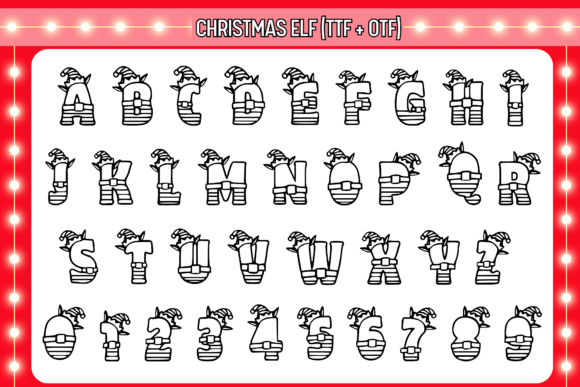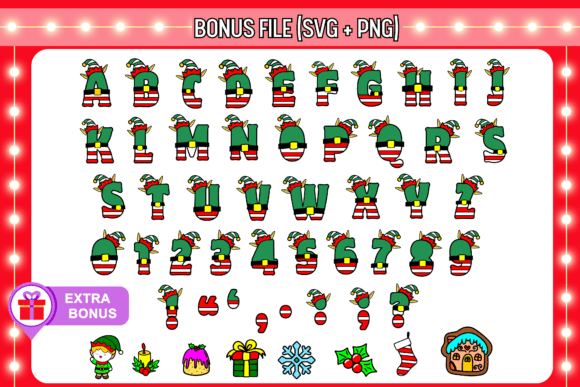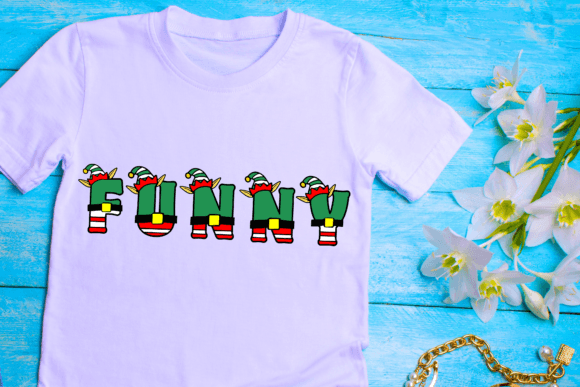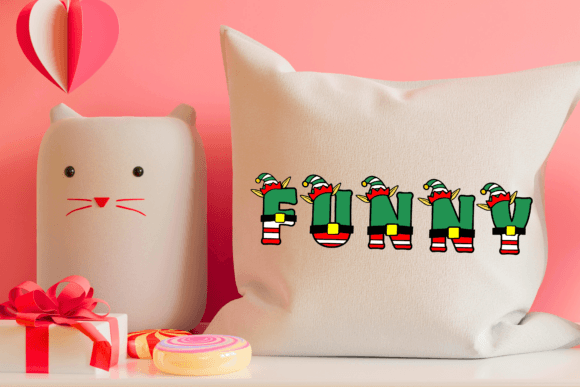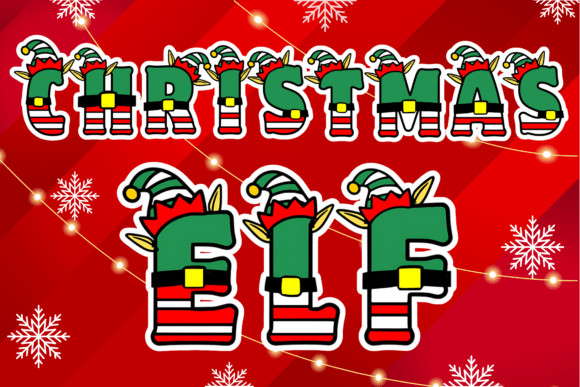
Introducing Christmas Elf Font: Add a Playful Touch to Your Holiday Projects
Are you looking for a unique and festive font to add a touch of magic to your holiday projects? Look no further than the Christmas Elf Font! This playful decorative font is designed to bring cheer and joy to your Christmas cards, banners, and holiday crafts. Each letter is carefully styled to resemble a cheerful elf, complete with festive hats, shoes, and holiday decorations.
What Makes Christmas Elf Font So Special?
The Christmas Elf Font is a one-of-a-kind typeface that combines whimsy and festivity, making it perfect for designers and crafters who want to add a personal touch to their holiday projects. Here are just a few reasons why this font stands out:
- Unique Lettering Style: Each letter is designed to look like a cheerful elf, complete with intricate details like hats, shoes, and holiday decorations.
- Playful and Festive: The Christmas Elf Font is designed to evoke the spirit of the holiday season, making it perfect for Christmas cards, banners, and other holiday projects.
- Versatile: This font can be used for a variety of projects, from digital designs to handmade crafts.
How to Use Christmas Elf Font in Your Projects
The Christmas Elf Font is perfect for a variety of holiday projects, including:
- Christmas Cards: Add a personal touch to your holiday cards with this playful font.
- Holiday Banners: Create eye-catching banners with the Christmas Elf Font to hang in your home or office.
- Gift Tags: Add a festive touch to your gift tags with this fun and playful font.
- Social Media Graphics: Use the Christmas Elf Font to create festive social media graphics to share with friends and family.
Here are a few tips for designers and crafters who want to get the most out of the Christmas Elf Font:
- Experiment with Colors: Try pairing the Christmas Elf Font with different colors to create a unique and eye-catching design.
- Add Texture and Patterns: Add texture and patterns to your design to give it a more handmade feel.
- Mix and Match Fonts: Try pairing the Christmas Elf Font with other festive fonts to create a unique and interesting design.
- Have Fun!: The most important thing is to have fun and be creative with the Christmas Elf Font!
The Christmas Elf Font is a unique and festive typeface that’s perfect for designers and crafters who want to add a playful touch to their holiday projects. With its cheerful elf design and festive details, this font is sure to bring joy and cheer to your Christmas cards, banners, and holiday crafts. So why wait? Download the Christmas Elf Font today and start creating your own magical holiday projects!
By incorporating the Christmas Elf Font into your holiday projects, you’ll be sure to add a touch of magic and whimsy that’s sure to delight friends and family alike. So go ahead, get creative, and have fun with this festive and fun font!